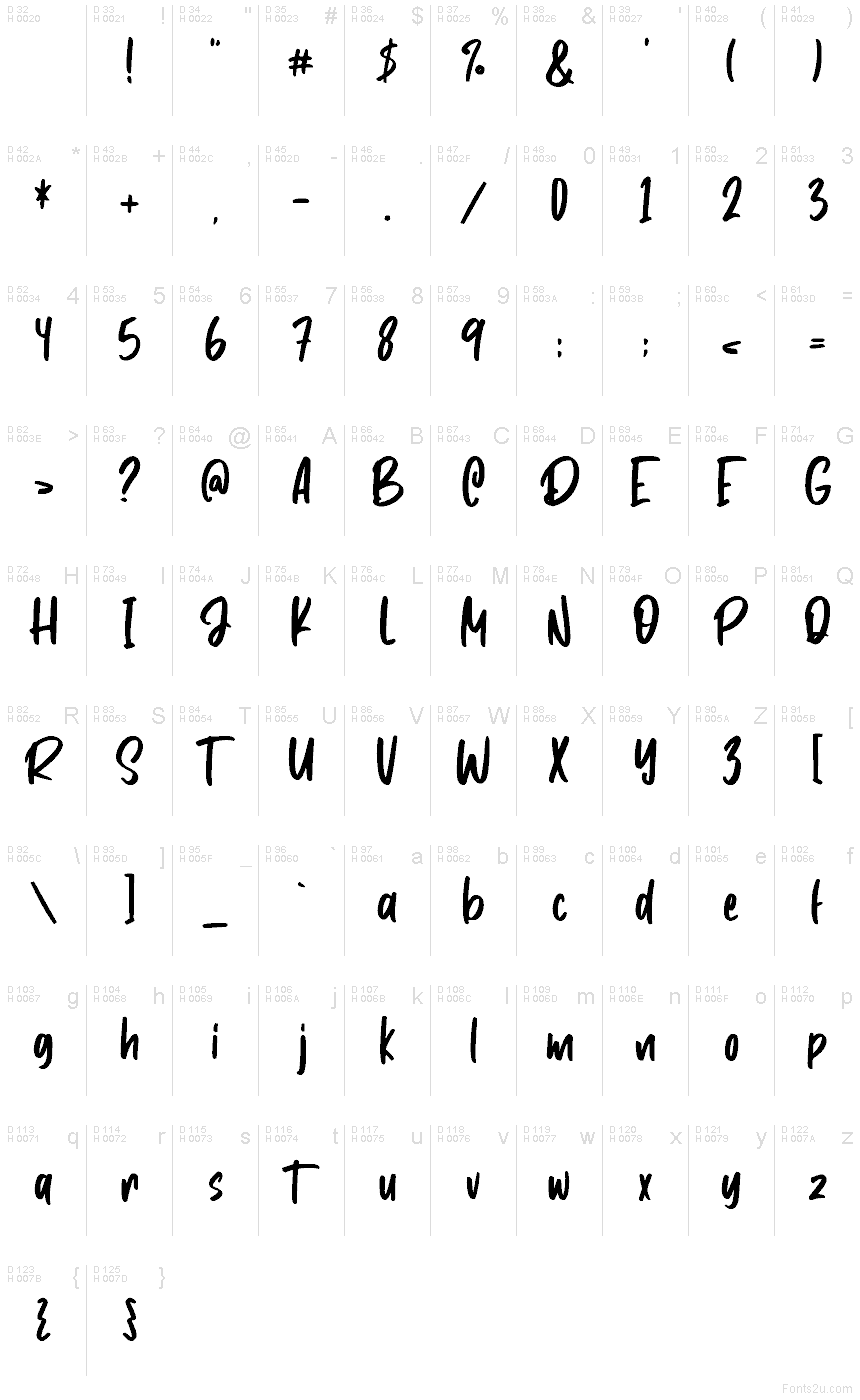
Poetry of Silence
Poetry of Silence font by BlackFridayFont FMF is a free handwritten display font that solves a familiar challenge: getting that inky, brush-script warmth without sacrificing clarity. Its strokes feel freshly painted—thick, cushioned downstrokes with breezy joins—yet the spacing stays open, so headlines read cleanly at a glance. You get lively texture and confident weight, not the messy wobble that bogs down many script choices.
Using Poetry of Silence, text snaps on social posts, product packaging, quote posters, café menus, event flyers, and boutique logos. The rhythm is upbeat and consistent, so short phrases carry punch while longer lines remain readable. For a polished look, pair this free font with a simple, light sans for body copy and give it a touch of extra letterspacing at large sizes.